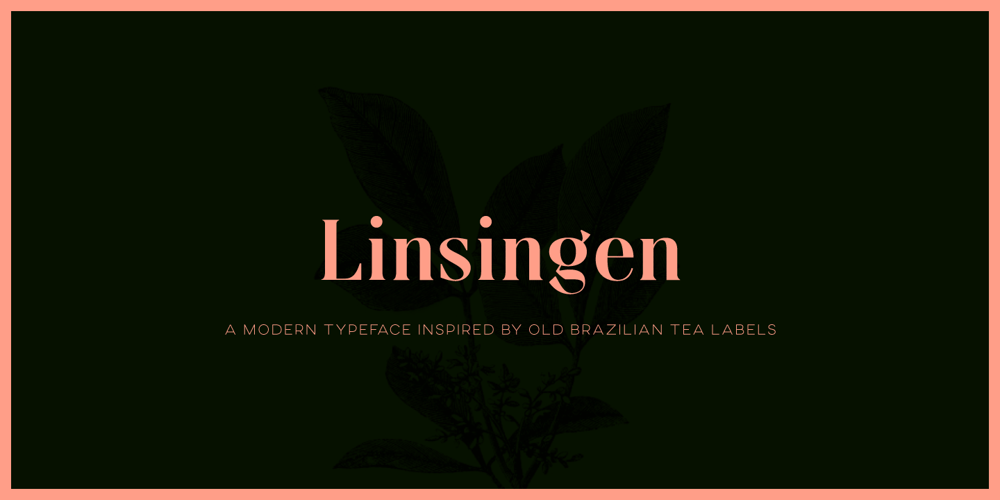
Linsingen Font Family was designed by Jean Wojciechowski, Re-nato Bertão and published by Jean Wojciechowski. Linsingen contains 3 styles and family package options. Linsingen is a font family inspired by Brazilian tea barrel labels printed with lithography in the beginning of the 20th century. The family consists of three styles – Linsingen Vintage, which preserves the shapes found in the original prints; Linsingen Moderna, a contemporary interpretation of the original shapes, with increased contrast and sharper lines; and Linsingen Stencil. All of the three styles are suited for titles and headlines.